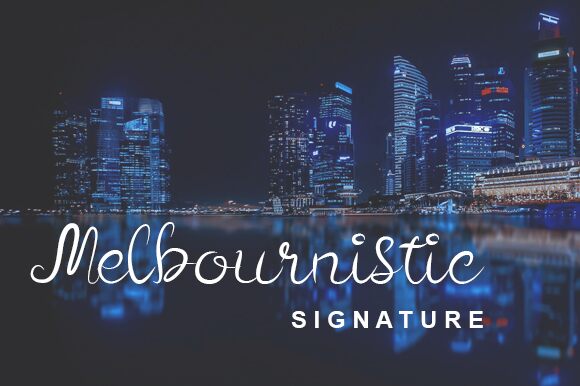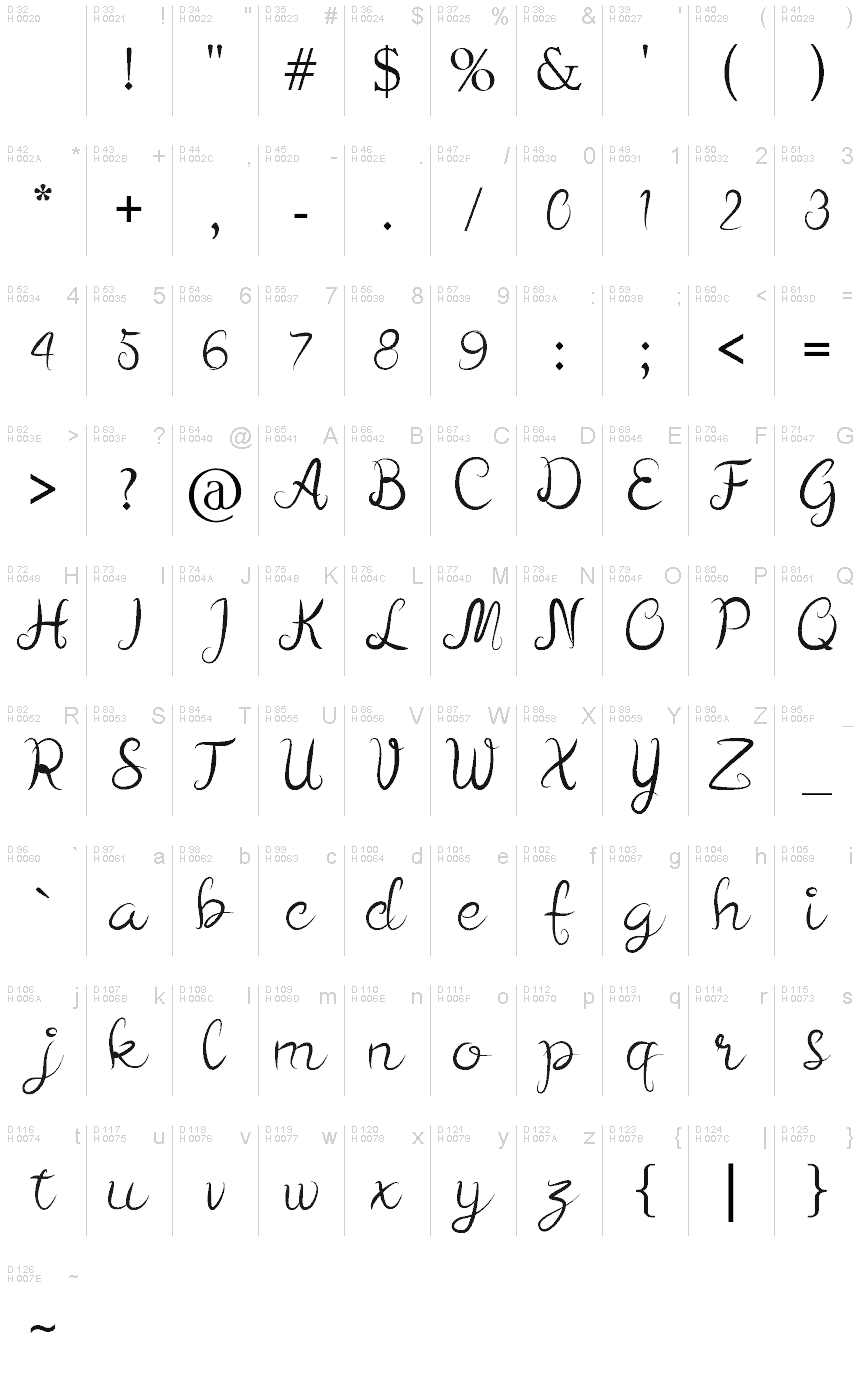
melbournistic
Melbournistic, the captivating handwritten font crafted by Rizalul Ammar, exudes a distinct charm and personality. With its fluid, organic strokes and playful ligatures, this font emits a sense of warmth and authenticity, evoking the allure of a handcrafted aesthetic. Melbournistic's striking balance between elegance and whimsy makes it a captivating choice for a wide range of design applications.
Melbournistic's versatility shines through its adaptability to various contexts. Its informal, yet refined characteristics lend themselves beautifully to branding, editorial design, and promotional materials, infusing projects with a touch of artisanal flair. Designers seeking to add a personal, handmade touch to their work will find Melbournistic an invaluable asset, as it seamlessly integrates into design compositions to create a memorable and impactful visual experience.